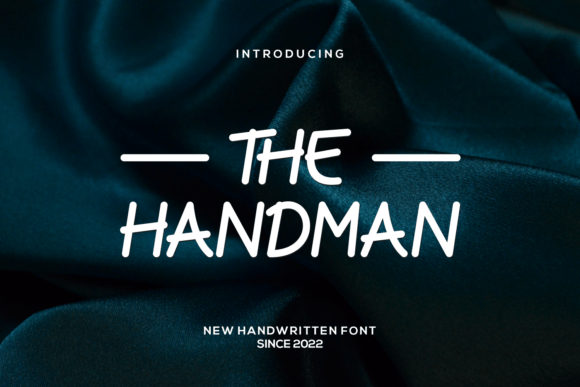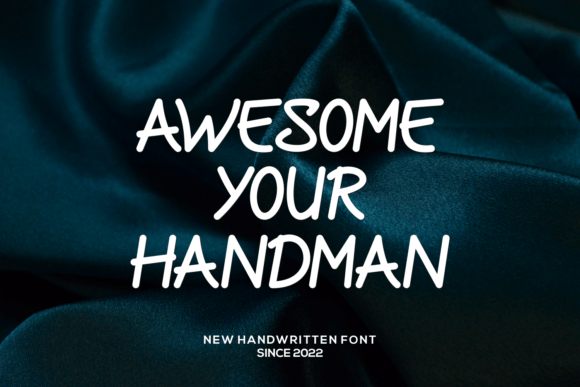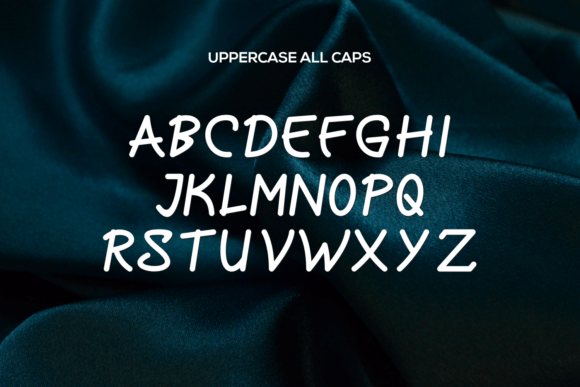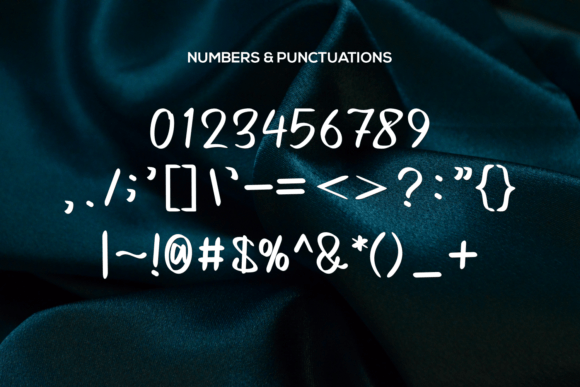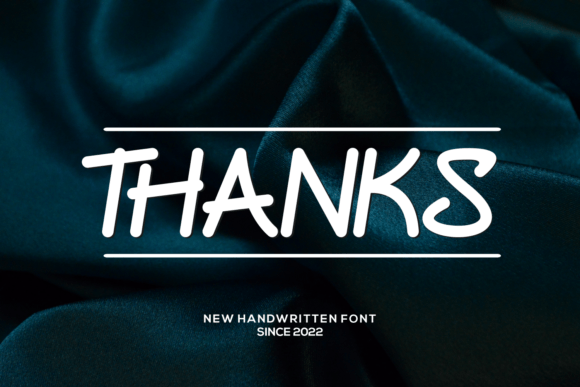
The Handman Font Font
About The Handman Font
“The Handman” is a bold handwritten font that combines a charming touch of style with a contemporary edge. This versatile font is a perfect choice for designers seeking a blend of creativity and modernity in their projects.
“The Handman” font exudes a unique charm, making it stand out from more conventional typefaces. Its bold strokes and handwritten style add a dash of personality and character to your designs while maintaining a sleek and contemporary appearance.
This font is well-suited for a wide range of design applications. Whether you’re creating branding materials, posters, logos, packaging, or website content, “The Handman” adds a delightful twist to your design work. It brings that essential element of interest and uniqueness to your projects while ensuring they maintain a modern and relevant aesthetic.
“The Handman” is the ideal choice for those who appreciate the fusion of creativity and modern design sensibilities. It allows you to break away from the ordinary and inject a captivating personality into your work while still adhering to the contemporary visual language.
In summary, “The Handman” is more than just a font; it’s a design tool that offers a charming blend of style and modernity. Its bold and handwritten nature provides that interesting and distinctive edge you may be seeking for your creative endeavors. Whether you’re designing for branding, marketing, or any other visual communication, “The Handman” font enables you to strike the perfect balance between intrigue and modern appeal. Embrace “The Handman” and watch your designs come to life with a touch of captivating style.